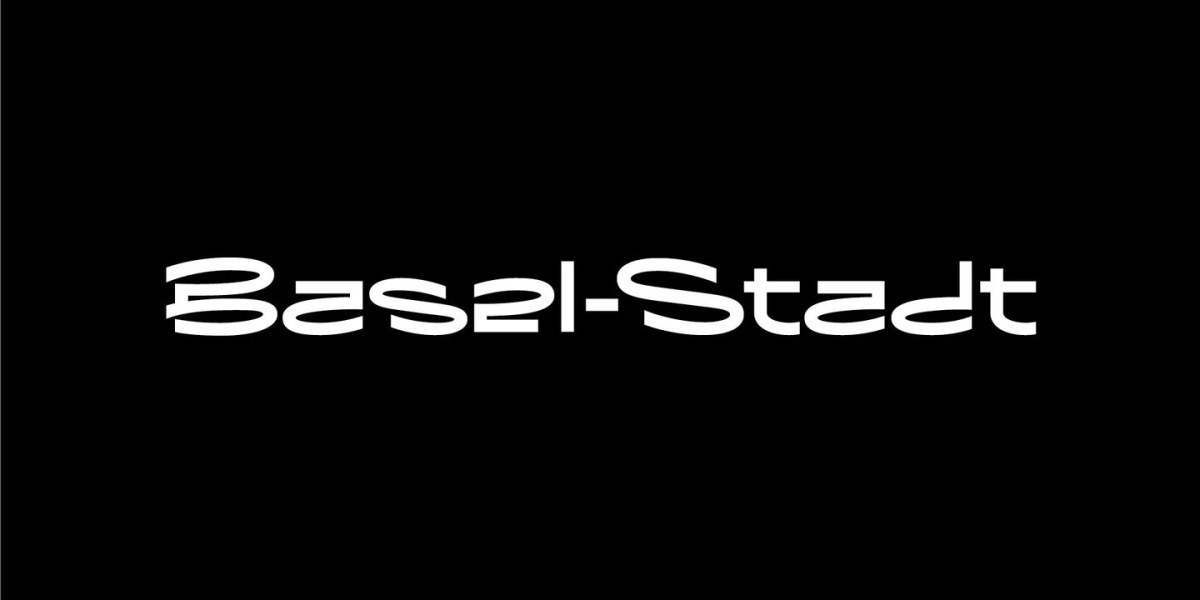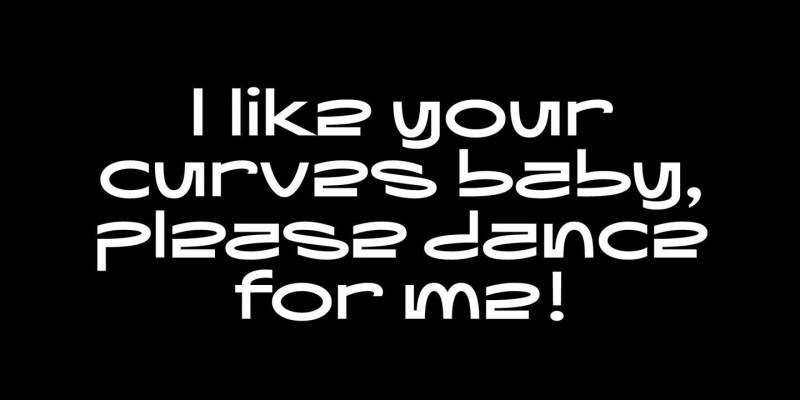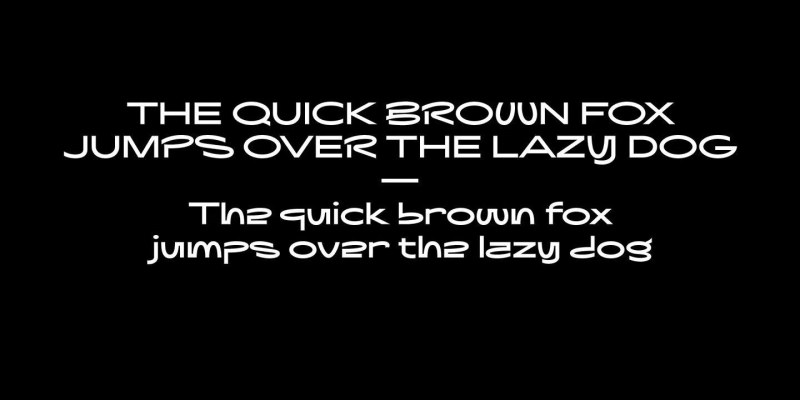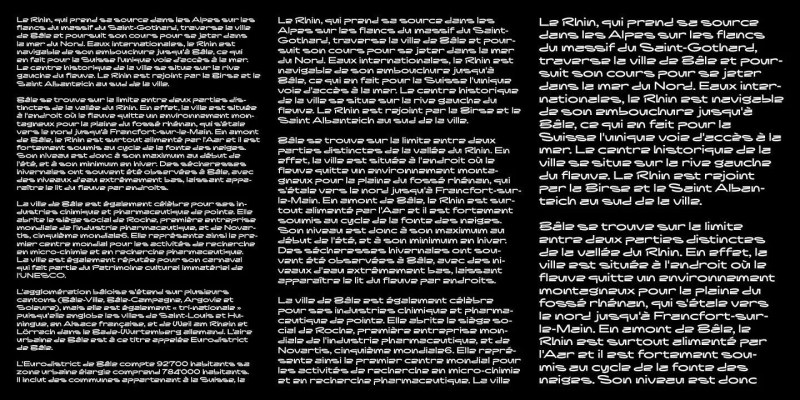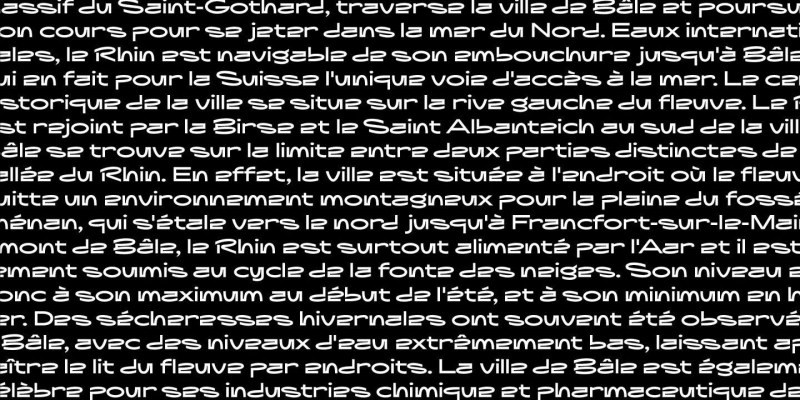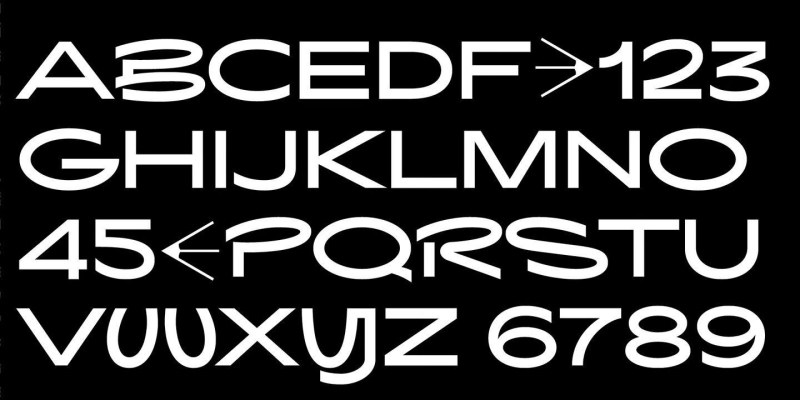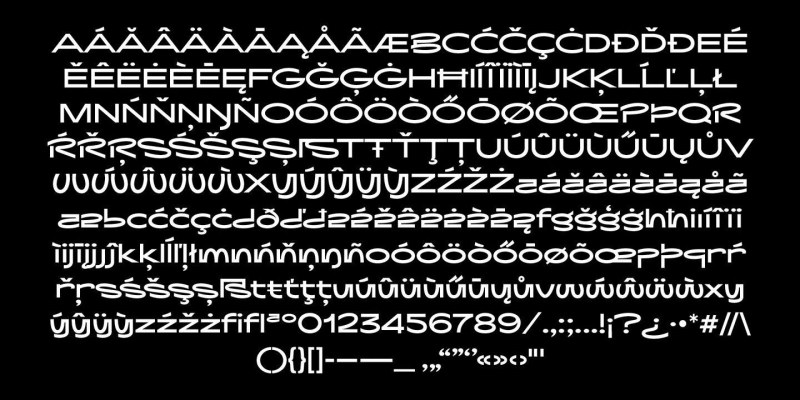
Basel Stadt Font Family
Basel-Stadt is a typeface strongly contrasted by long and wide curves and angular shapes in 6 weights, from Thin to Bold. The character set contains 401 playful glyphs and supports all Latin languages. Basel-Stadt is deeply graphical and looks like dancing; it is a perfect choice for titling, posters, music, magazines, etc.… Basel-Stadt is a typeface you will have fun playing with.
Basel Stadt Font Family is a Font Family font that brings a professional and versatile look to your projects. Basel-Stadt is a typeface strongly contrasted by long and wide curves and angular shapes in 6 weights, from Thin to Bold.